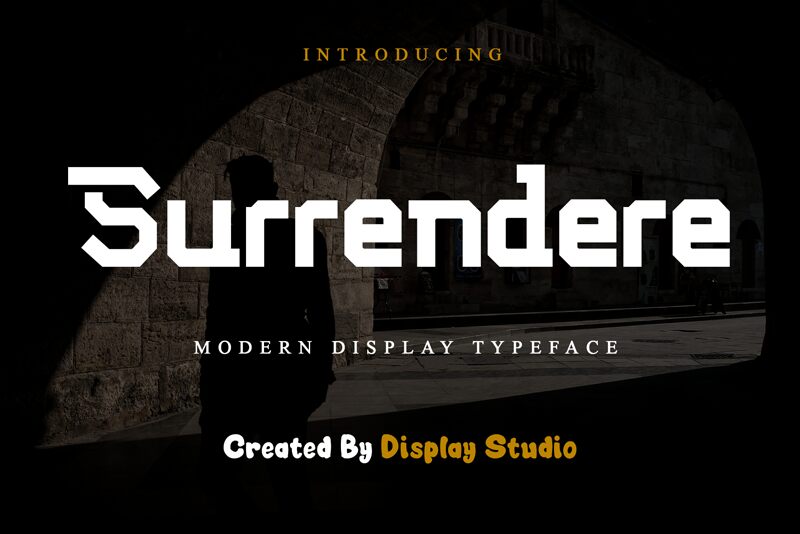
Introducing Surrendere, the bold and wide techno display font by Display Studio. Its futuristic design is perfect for projects that require a strong and modern look, such as technology websites, gaming logos, and sci-fi movie posters. Surrendere's unique style will grab attention and make your message stand out. Surrendere is the perfect choice for designers looking to create eye-catching visuals that make an impact.
Surrendere